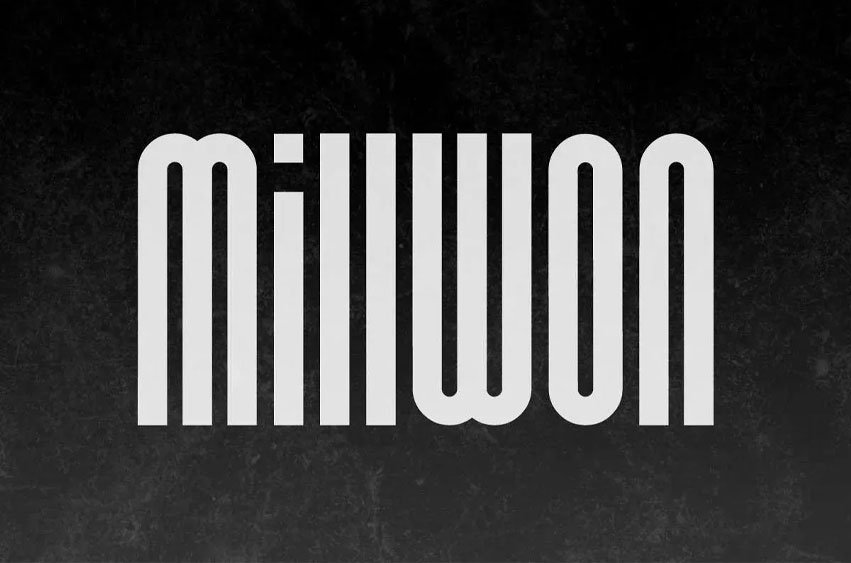
Millwon Font is a modern and playful display sans serif font with a unique curved edge on each character. It will be able to elevate your designs to high level, such as billboard, brand logo, brochure, business card, invitation, label, magazine catalog, mockup design, poster, packaging design, quote, screen print, signage, stationery, sticker, title, website, etc.
Millwon Font includes a cool complete set of ALL CAPS with different size between Uppercase and Lowercase letters, Number, Punctuation and Symbol. Carefully crafted typography produces a nearly perfect typeface to suit your business needs,